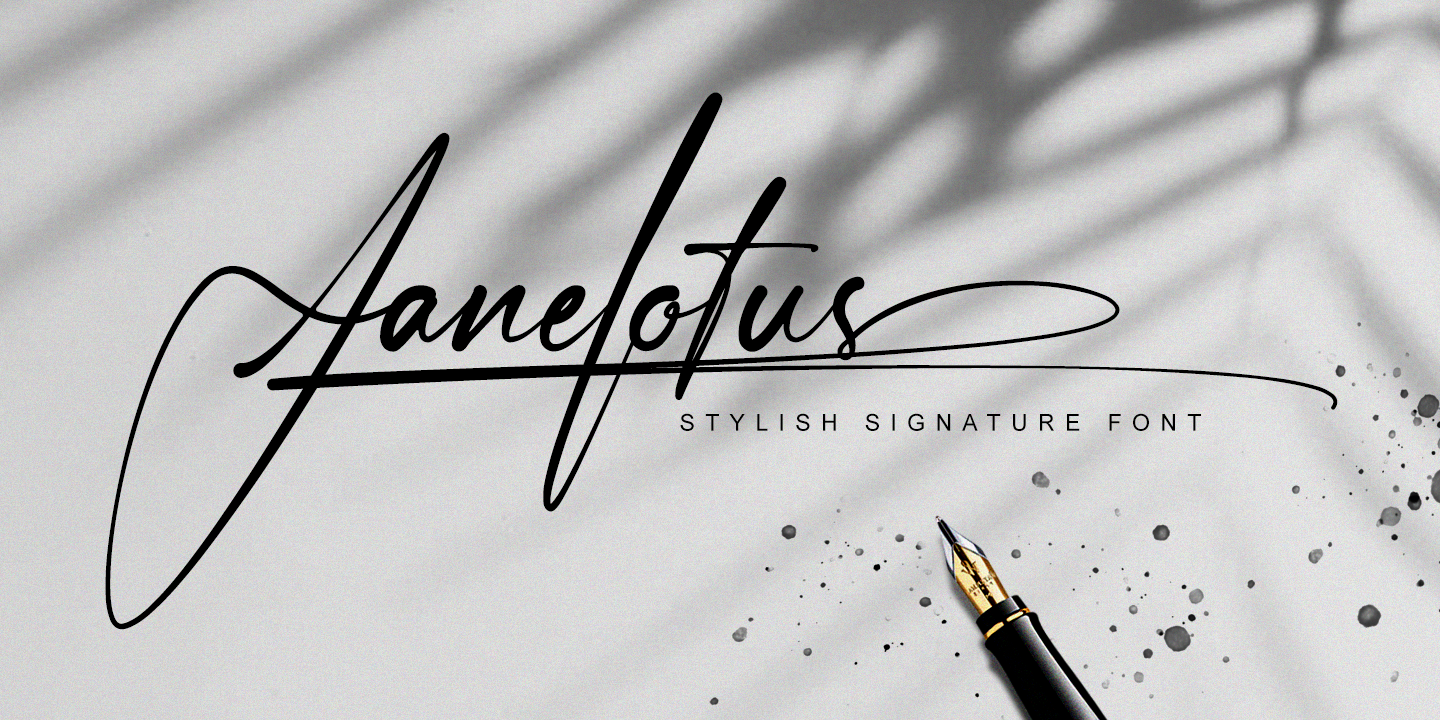
Janelotus Font Free Download – A delicate, floral-inspired script that blends elegant calligraphy with organic botanical beauty. Commercial use requires a license, but you can download the free version to add natural sophistication to your personal projects.
Where Can You Use Janelotus Font?
This graceful font enhances:
Wedding stationery (romantic invitations, place cards)
Feminine branding (botanical skincare, floral boutiques)
Luxury packaging (perfume labels, tea boxes, handmade soaps)
Nature-inspired designs (gardening books, eco-friendly products)
Why Is Janelotus Font Exciting?
Janelotus blooms with botanical elegance through:
Hand-painted petal details within select characters
Flowing baselines that mimic natural growth
Contextual alternates for organic variation
Perfect balance between artistry and readability
Janelotus Font Family
The complete floral collection includes:
Janelotus Regular (base flowing style)
Janelotus Bold (lush, full-bloom weight)
Janelotus Swashes (extended decorative strokes)
Janelotus Ornaments (standalone floral elements)